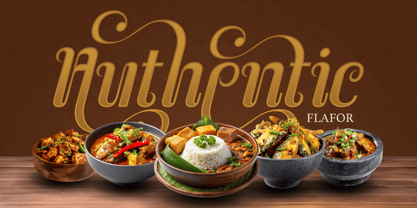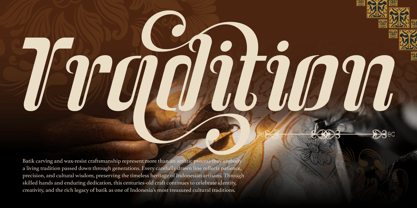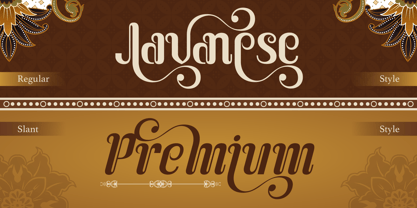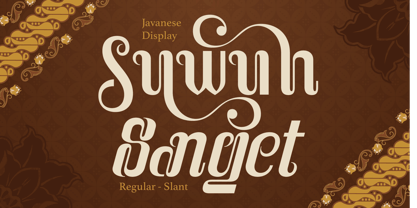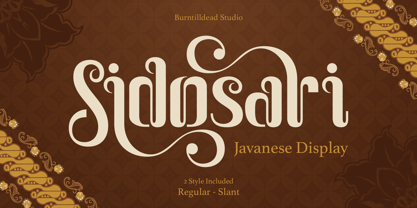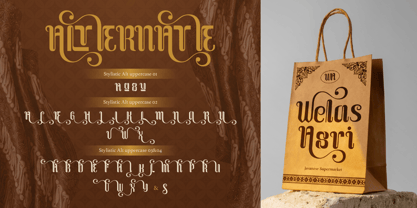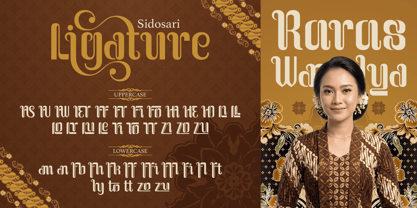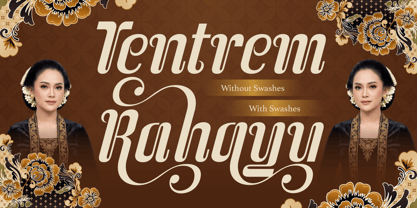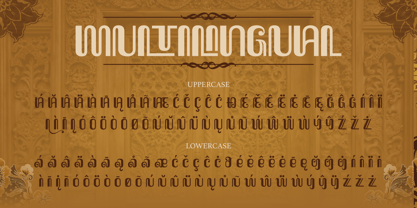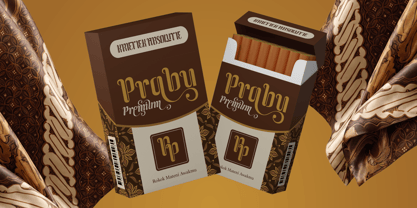
Sidosari
Die Schriftfamilie Sidosari wurde von Eric Kurniawan entworfen und von Burntilldead veröffentlicht. Sidosari enthält 2 Stile und Familienpaketoptionen. Mehr über diese Familie
Sidosari is a bold Javanese-inspired display font featuring elegant swash details and decorative curves that bring a rich, traditional Indonesian character to any design. With its flowing ligatures and ornamental flourishes, Sidosari captures the timeless beauty of Javanese script culture while remaining fully legible and versatile for modern branding needs.
This font comes in 2 styles: Regular and Slant, giving you flexibility to mix and match for headers, logos, and decorative titles.
Perfect for: Traditional & heritage branding (batik, food & beverage, cultural products), Restaurant logos or menu headers, Wedding invitations with an ethnic/traditional touch, Product packaging with a vintage-cultural aesthetic, Social media graphics and quote designs, Apparel and merchandise prints, Book covers with a Javanese/Indonesian theme
Features: A – Z set (Uppercase & Lowercase), Number, Punctuation, Alternates, Ligatures, Multilingual
Designer: Eric Kurniawan
Foundry: Burntilldead